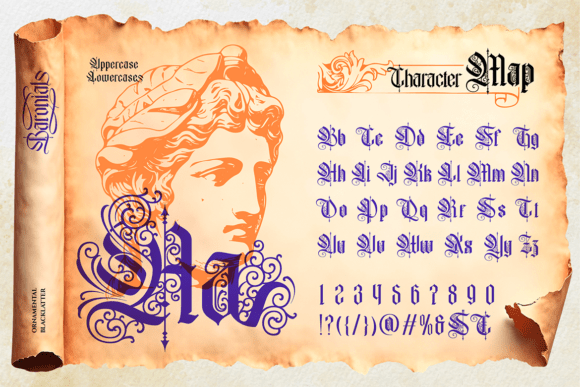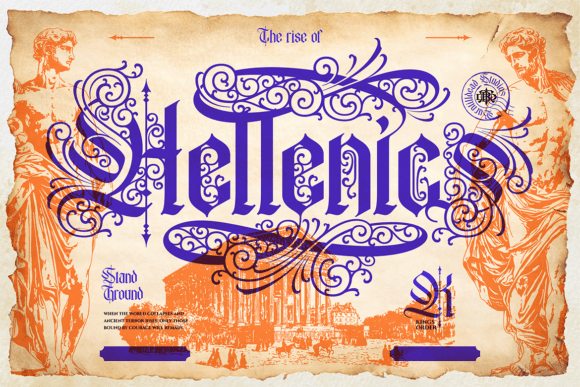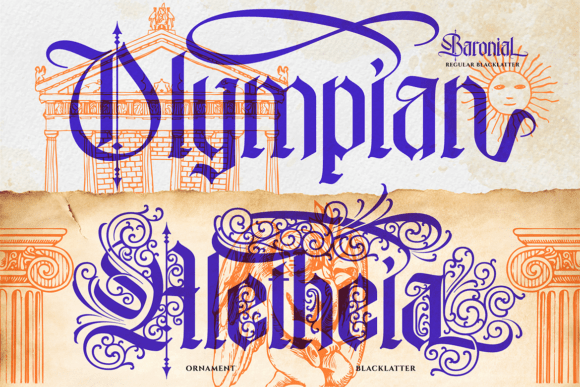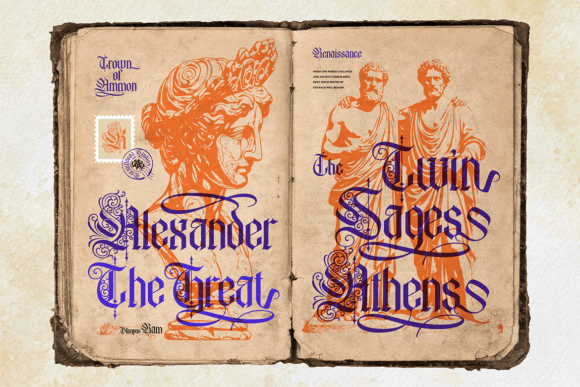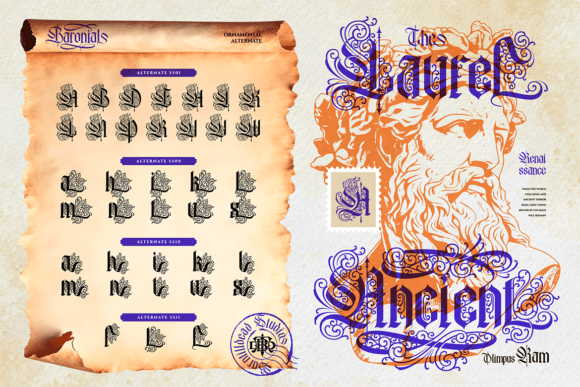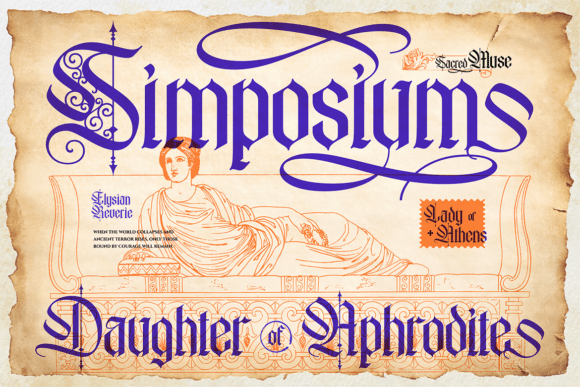
Introducing Baronial Font: A Regal Blackletter Typeface for Timeless Designs
In the realm of typography, few fonts evoke the grandeur and majesty of medieval manuscripts, classical sculptures, and ancient empires as effectively as Baronial. This bold and decorative blackletter typeface is a masterful creation, inspired by the ornate lettering and flourishes of bygone eras. Whether you’re a designer seeking to add a touch of luxury to your branding, a crafty individual looking for the perfect font for your medieval-themed project, or a typography enthusiast eager to explore the world of blackletter fonts, Baronial is an exceptional choice.
The Inspiration Behind Baronial
Baronial’s design is rooted in the rich history of blackletter typography, which dates back to the Middle Ages. During this period, scribes and calligraphers painstakingly crafted intricate letterforms by hand, often adorned with ornate flourishes and decorations. Baronial’s creator drew inspiration from these medieval manuscripts, as well as classical sculptures and the grandiose aesthetic of ancient empires. The result is a font that exudes regality, sophistication, and a deep sense of history.
Two Styles to Suit Your Needs
One of the standout features of Baronial is its versatility. The font comes in two distinct styles: Regular and Ornament. The Regular style offers a clean, bold blackletter look that’s perfect for projects where you want to make a statement without overwhelming the senses. The Ornament style, on the other hand, takes the font to the next level with beautiful flourishes and decorations, ideal for designs that require a more elaborate, luxurious aesthetic.
Baronial’s versatility and timeless beauty make it an excellent choice for a wide range of projects. Here are just a few ideas to get you started:
- Branding: Add a touch of luxury and sophistication to your logo, letterhead, or business cards.
- Posters and Flyers: Create eye-catching promotional materials for events, concerts, or festivals.
- Album Covers: Give your music a regal, vintage vibe with Baronial’s bold, decorative lettering.
- Book Titles: Use Baronial to create stunning title pages, chapter headings, or quotes for your book.
- Packaging: Elevate your product packaging with a font that exudes quality, craftsmanship, and heritage.
- Tattoo Designs: Baronial’s bold, ornate lettering makes it a popular choice for tattoo designs, particularly for medieval-themed or quote-based tattoos.
- Medieval-Themed Projects: Whether you’re creating a costume design, a historical reenactment, or a fantasy-inspired artwork, Baronial is the perfect font to evoke the grandeur of the Middle Ages.
- Editorial Layouts: Add a touch of elegance and sophistication to your magazine, newspaper, or blog with Baronial’s classic, authoritative look.
Why Choose Baronial?
With so many fonts available, why choose Baronial? Here are a few compelling reasons:
- Uniqueness: Baronial’s distinctive design sets it apart from more common fonts, ensuring your project stands out from the crowd.
- Legibility: Despite its ornate nature, Baronial remains highly legible, even at smaller font sizes.
- Flexibility: With two styles to choose from, you can adapt Baronial to suit a wide range of projects and design contexts.
- Timelessness: Baronial’s classic, historical aesthetic ensures it will remain relevant for years to come, avoiding the fleeting nature of trendy fonts.
Baronial is a truly exceptional font that offers designers and crafters a unique opportunity to add a touch of luxury, history, and grandeur to their projects. With its two styles, versatility, and timeless beauty, Baronial is an excellent choice for anyone seeking a bold, decorative blackletter typeface. Whether you’re working on a branding project, a medieval-themed design, or simply looking to explore the world of typography, Baronial is sure to impress.